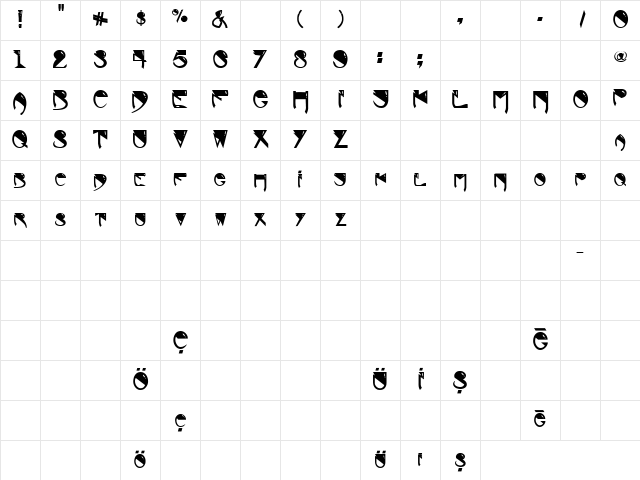
Alien TR Regular Free Font
Alien TR Regular
Design Context for Alien TR
Alien TR is a composed and adaptable typeface that performs quietly and consistently across a wide range of design contexts.